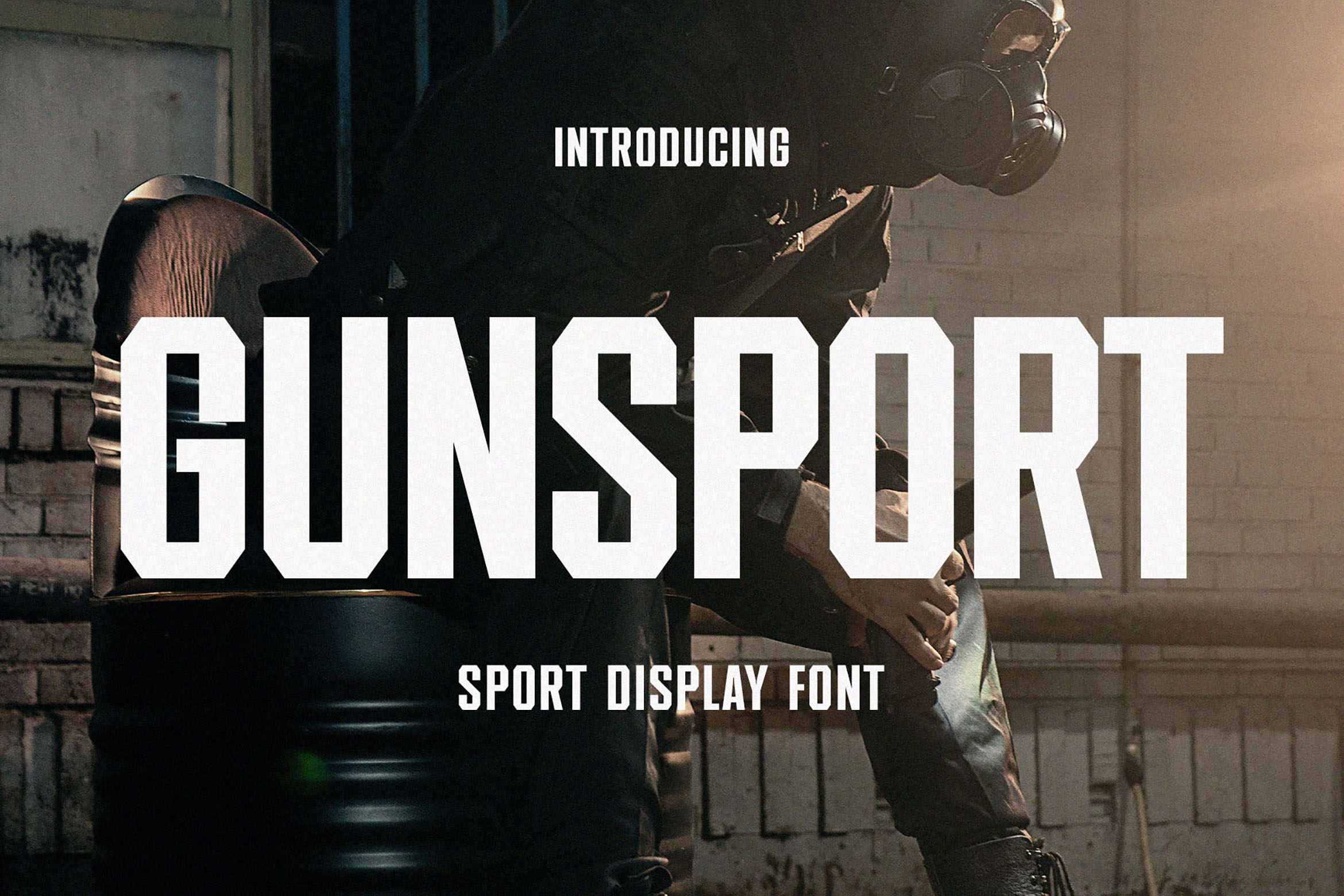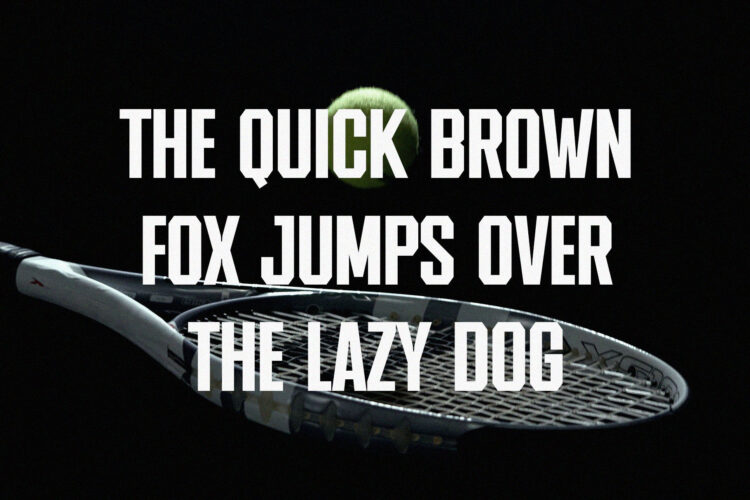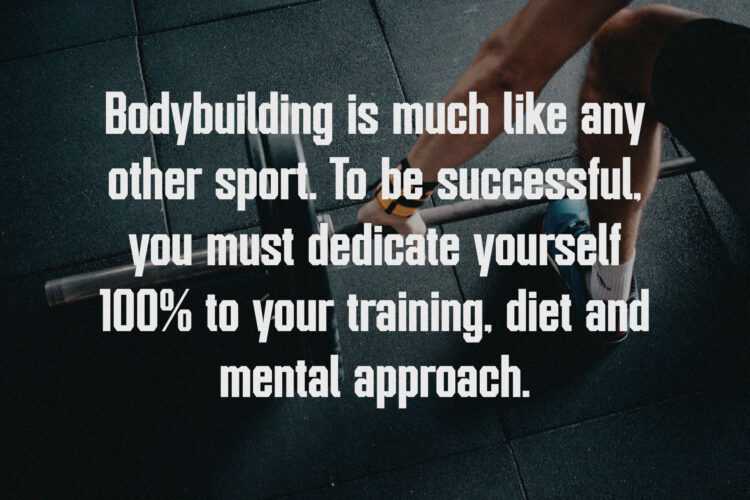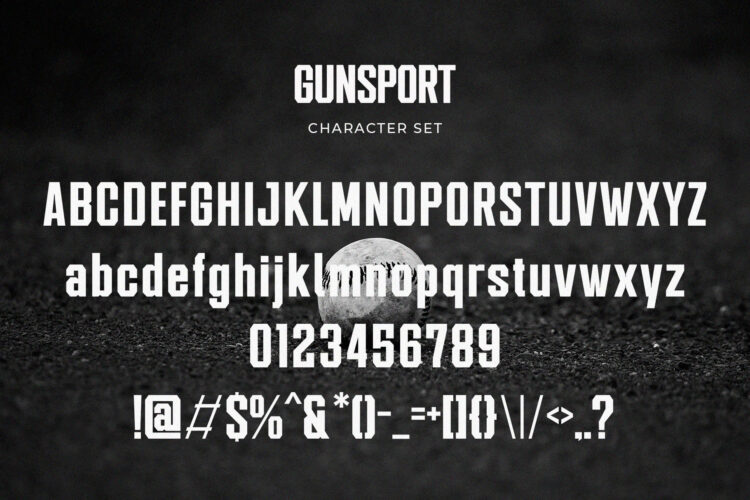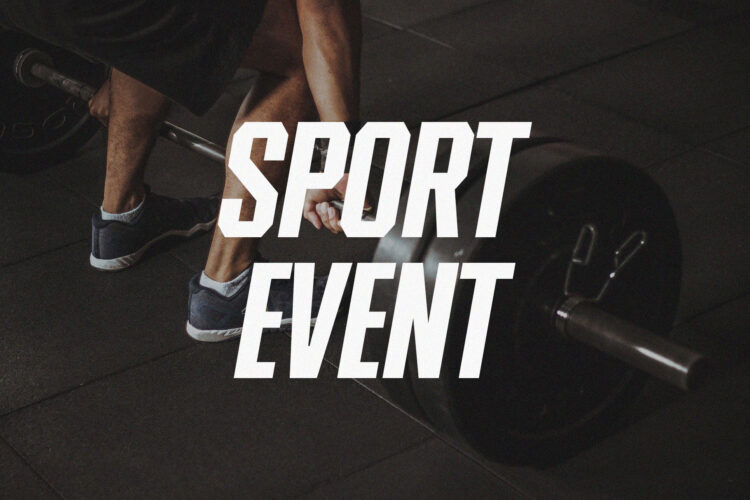
Introducing our new Gunsport, modern sans serif font with elegant style this is perfect for branding, logos, invitation, magazines, product packaging and more.
Gunsport – Sport Display Font